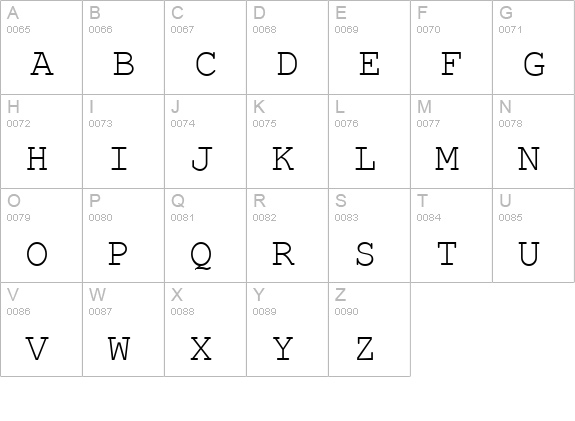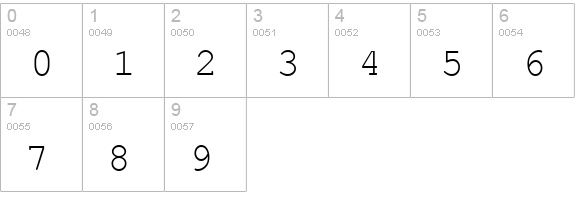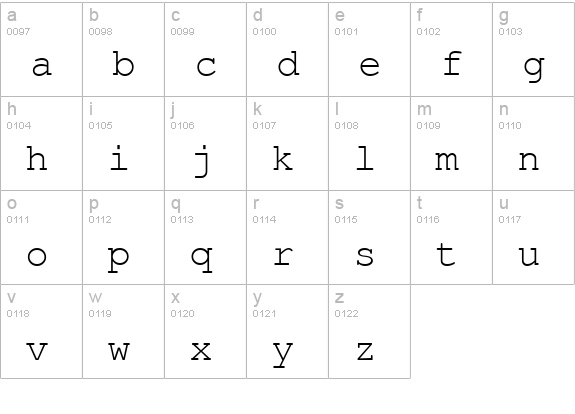
Courier-PS-Regular is the standard, neutral variant in the Courier typeface family \xE2\x80\x94 well suited to general body text, paragraphs, and standard typographic work.
Courier-PS-Regular is a classic and versatile font that exudes a sense of professionalism and reliability. Its clean and crisp letterforms make it ideal for a wide range of design projects, from formal documents to stylish invitations. With its monospaced characters and distinct typewriter-like appearance, Courier-PS-Regular is the perfect choice for conveying a sense of tradition and authenticity. Best of all, Courier-PS-Regular is available for free download at FontsMarket.com. This means that you can easily access this timeless font for your personal and commercial projects without any cost. Whether you're working on a print design, web project, or any other creative endeavor, Courier-PS-Regular offers a timeless and reliable typeface that will never go out of style. Download it today and elevate your designs with the classic appeal of Courier-PS-Regular.